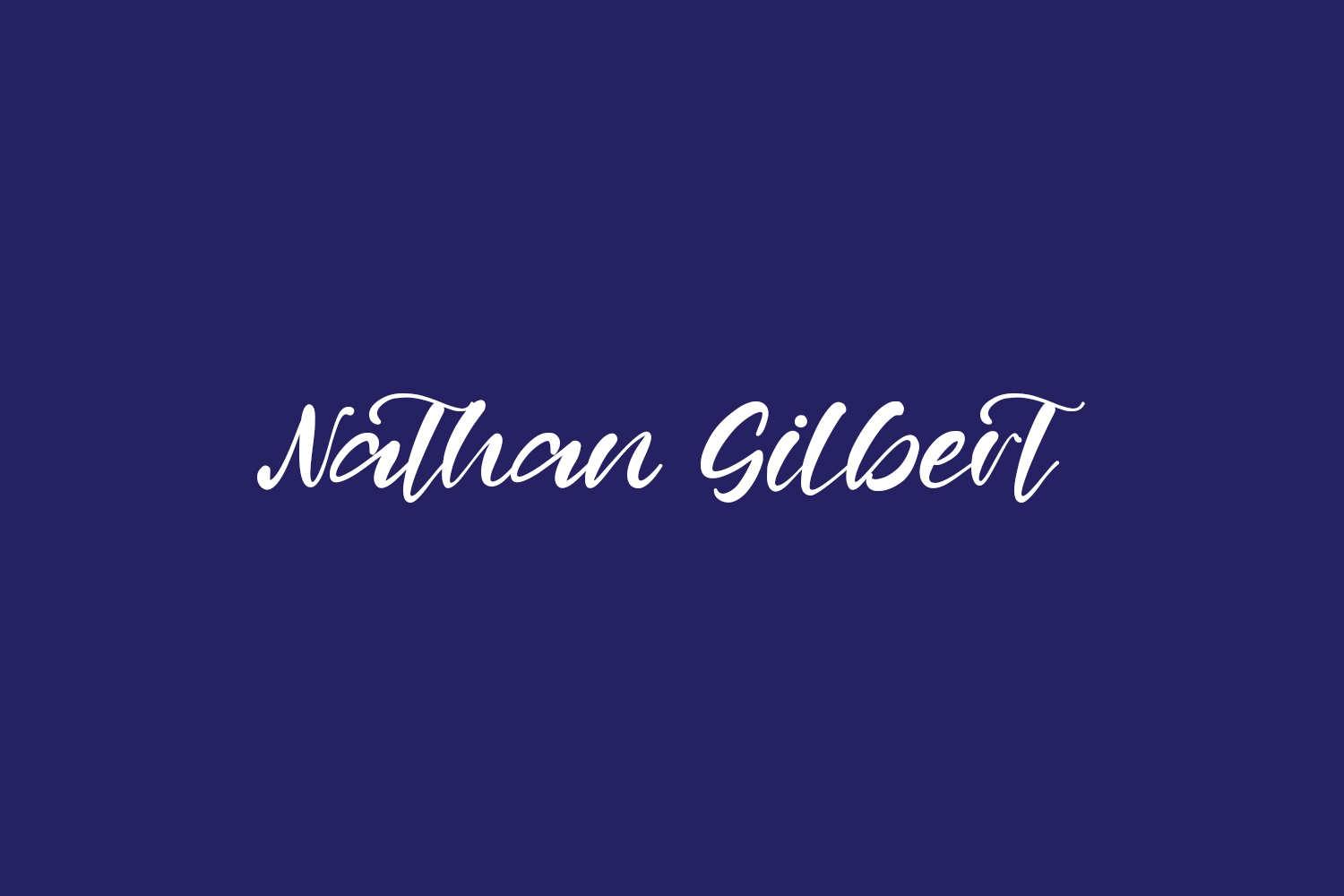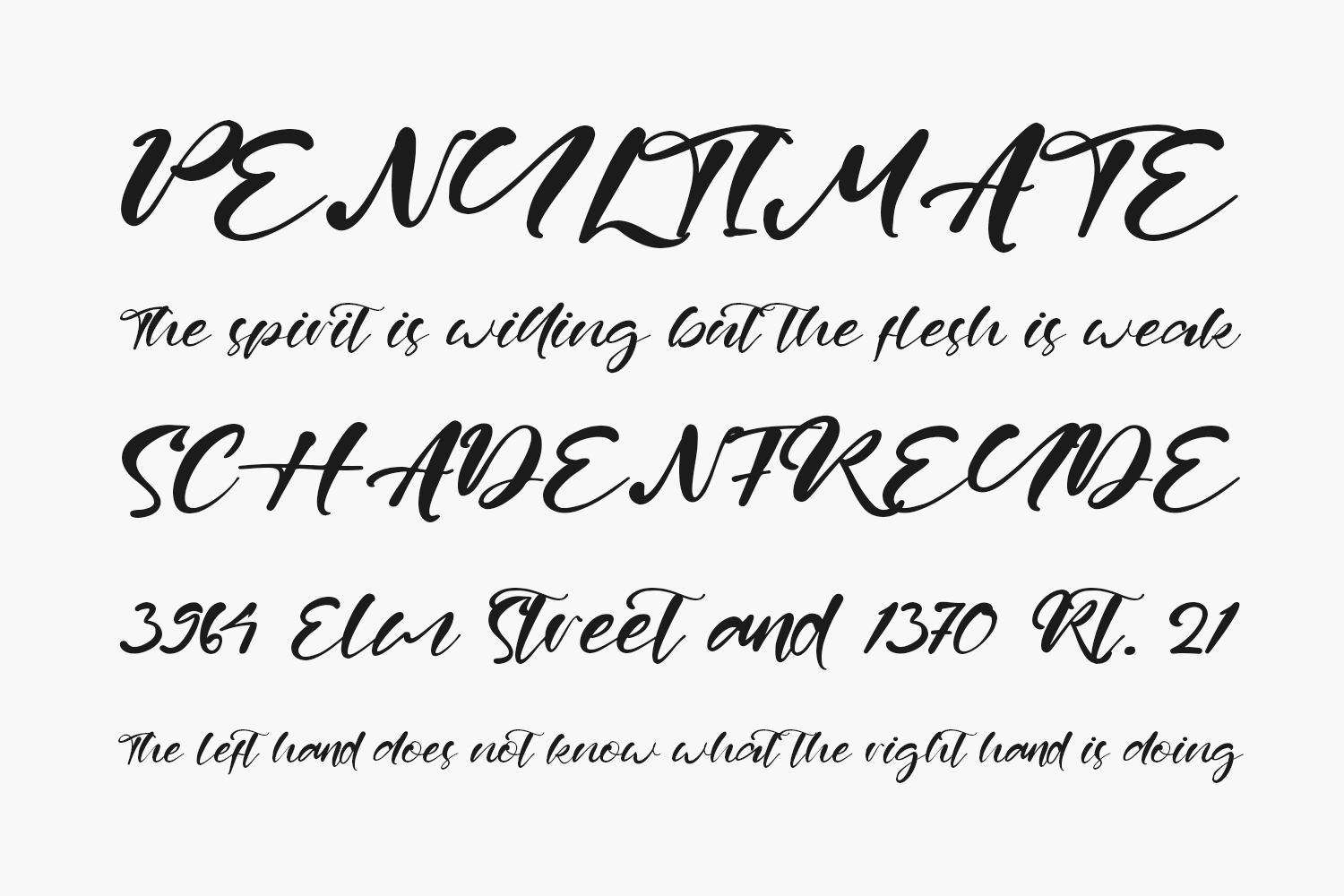
Nathan Gilbert Free Font is a modern and playful handwritten script font. It’s great for crafters and designers. It is perfect for any branding project such as logos, t-shirt printing, creative products, and more. Nathan Gilbert Free Font was designed by Kong Font and is free for personal use only. Please purchase the full version for commercial use.